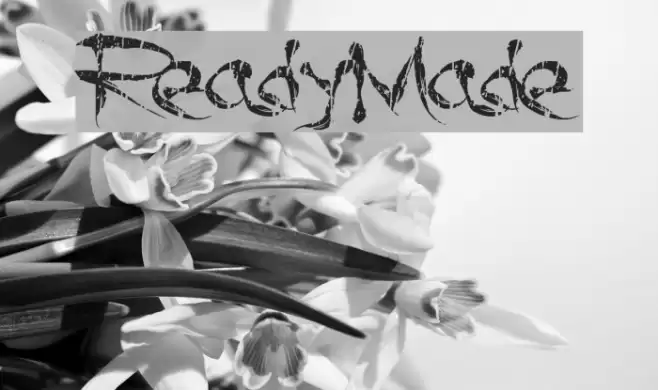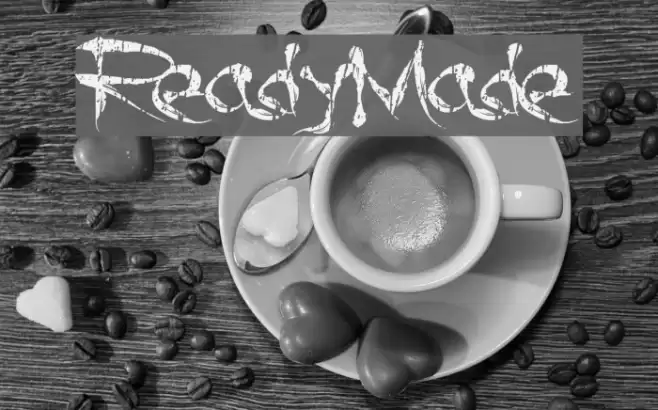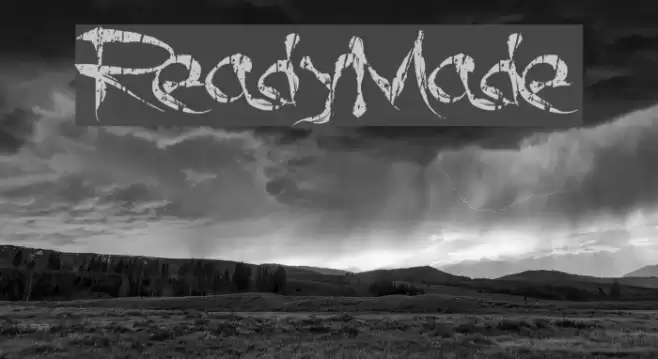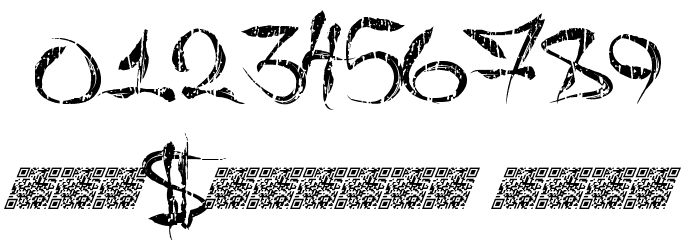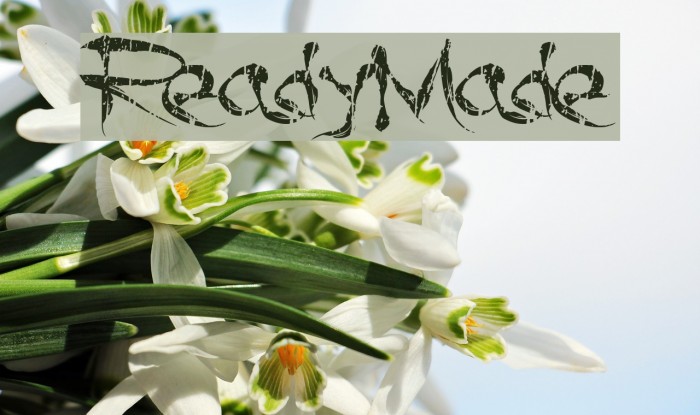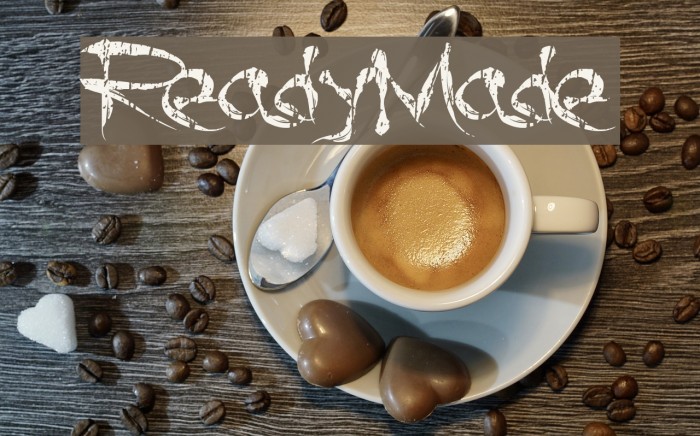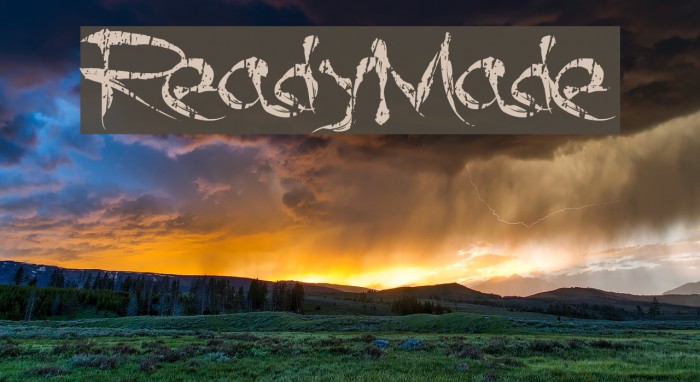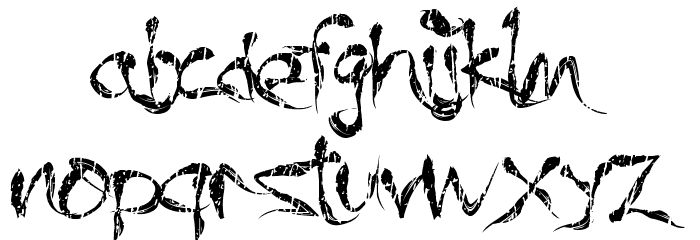
ReadyMade Font
ReadyMade Description
This font features a highly decorative and distressed style, characterized by its rough, textured appearance. The letters are irregular and jagged, giving an impression of being hand-drawn or painted with a brush. The strokes vary in thickness, adding to the chaotic and artistic feel. Each character seems to have unique imperfections, enhancing its raw and edgy aesthetic. This font is visually striking and commands attention, making it suitable for projects that require a bold and unconventional look.
A distressed, artistic font with a rough, textured appearance from Uncategorized fonts.
- Proposed Projects: Ideal for album covers, posters, graffiti art, and edgy branding projects.